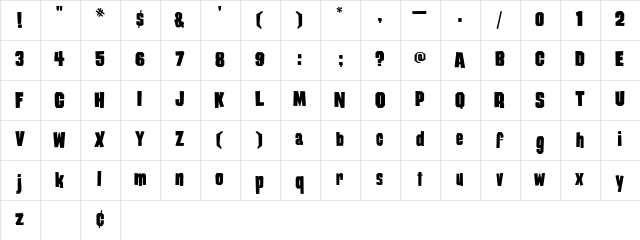
Damaged Goods
Design Context for Damaged Typeface
Damaged offers clean, dependable letterforms without strong stylistic allegiance, making it a practical choice for designers who need flexibility.